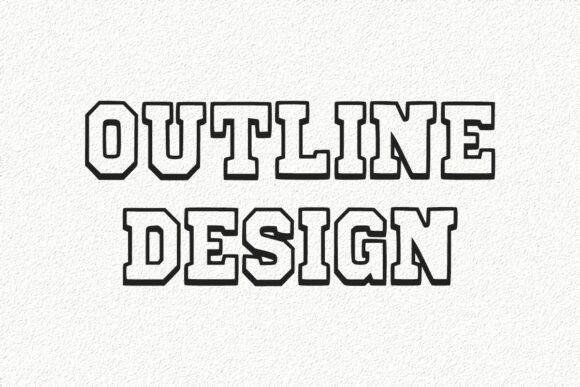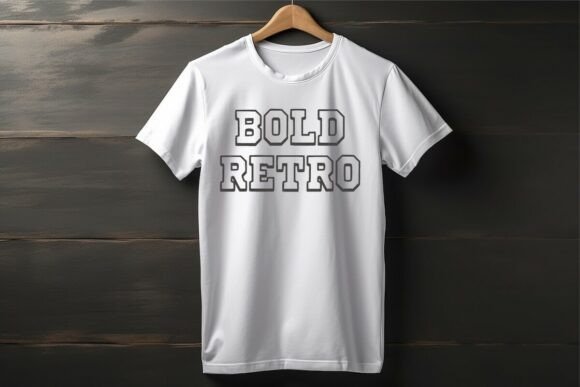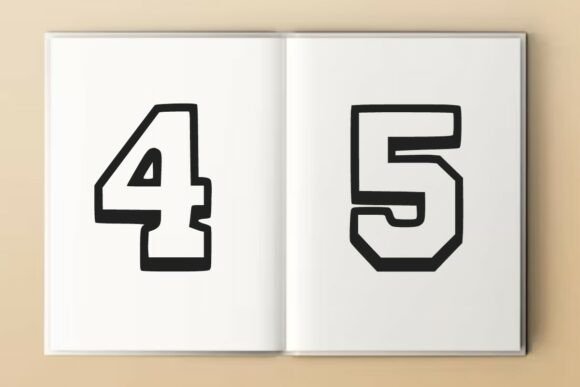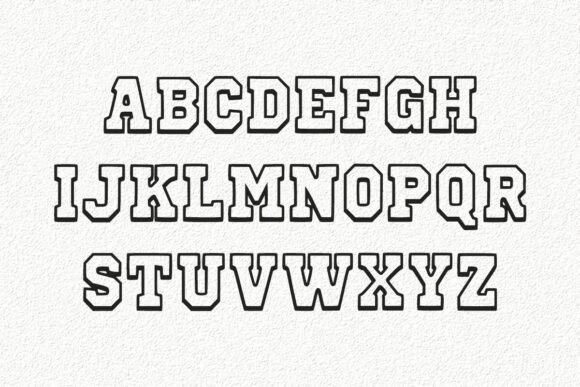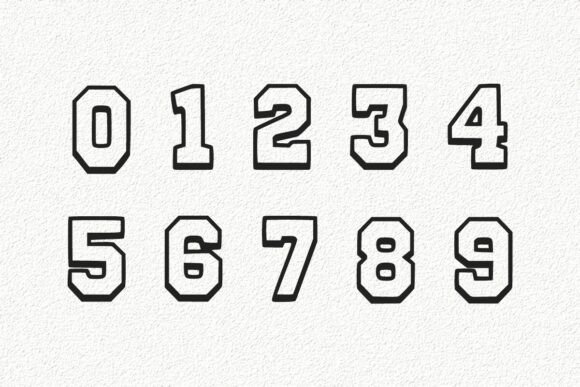
Step Back in Time with College School Font: A Bold and Versatile Typeface
Are you looking for a font that can add a touch of vintage charm to your designs? Look no further than College School, a bold display font with a captivating style that’s perfect for a wide range of projects. With its unique blend of modern flair and varsity nuances, this dynamic typeface is sure to breathe new life into any design.
The Characteristics of College School Font
College School font is a bold display font with a vintage outline that’s reminiscent of classic college and university branding. Its modern flair is evident in its clean lines and sleek curves, while its varsity nuances add a touch of nostalgia and sophistication. The font’s bold and eye-catching design makes it perfect for headlines, titles, and other display text.
One of the standout features of College School font is its versatility. Whether you’re working on a holiday or winter-themed project, product packaging, invitations, or any other type of design, this font is sure to shine. Its bold and captivating style makes it perfect for a wide range of applications, from:
- T-shirt designs: Make a statement with bold and eye-catching text that’s sure to turn heads.
- Quotes and posters: Add a touch of vintage charm to your inspirational quotes and posters.
- Label design: Create eye-catching labels that stand out on store shelves.
- Logos and text effects: Use College School font to create unique and memorable logos and text effects.
Why Designers and Crafters Love College School Font
So why do designers and crafters love College School font? Here are just a few reasons:
- Ease of use: College School font is easy to use and pairs well with a wide range of other fonts.
- High-quality design: The font is designed with high-quality and precision in mind, ensuring that it looks great in any size or application.
- Unique style: The font’s unique blend of modern flair and varsity nuances sets it apart from other fonts on the market.
- Versatility: Whether you’re working on a digital project or a physical one, College School font is versatile enough to adapt to any design.
Tips for Using College School Font
Here are a few tips for getting the most out of College School font:
- Experiment with different colors: College School font looks great in a wide range of colors, so don’t be afraid to experiment and find the perfect hue for your design.
- Pair it with other fonts: College School font pairs well with a wide range of other fonts, so try combining it with other typefaces to create a unique look.
- Use it for headlines and titles: The font’s bold and eye-catching design makes it perfect for headlines and titles.